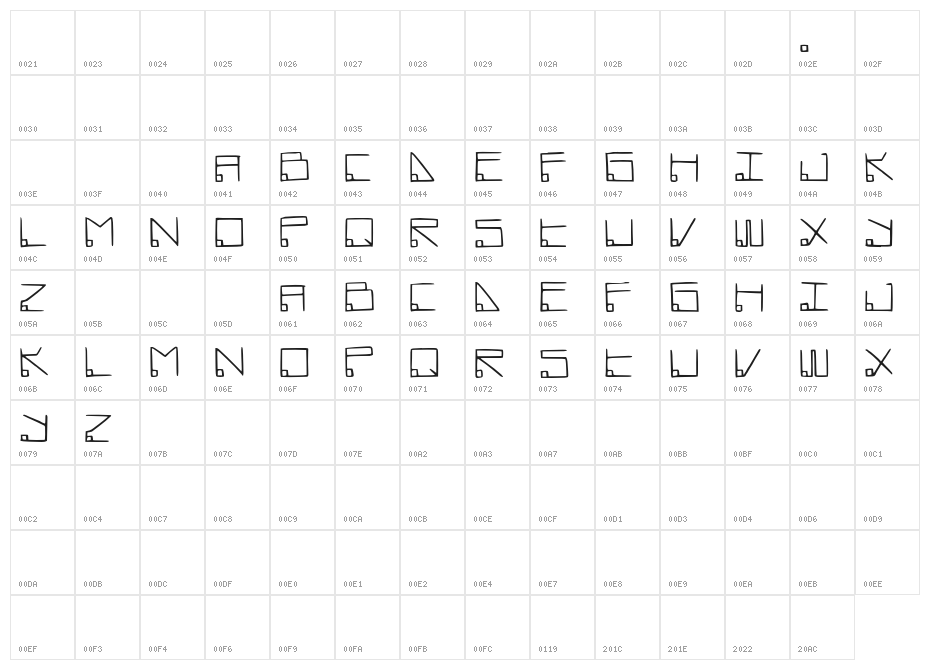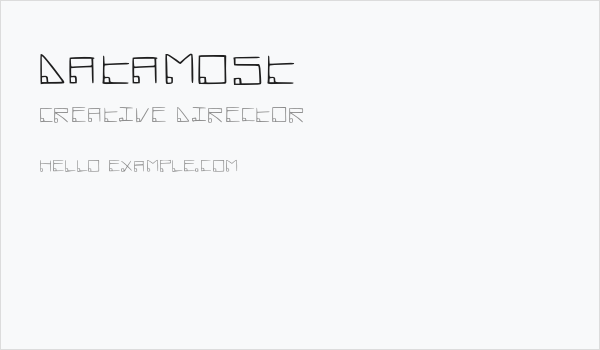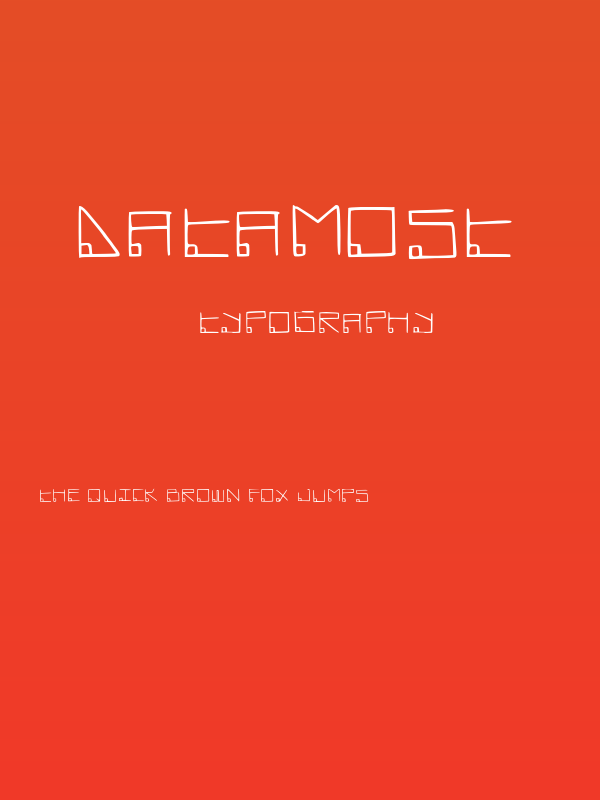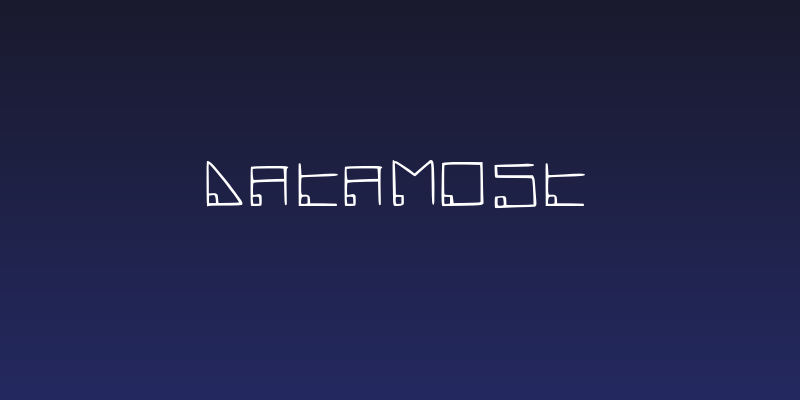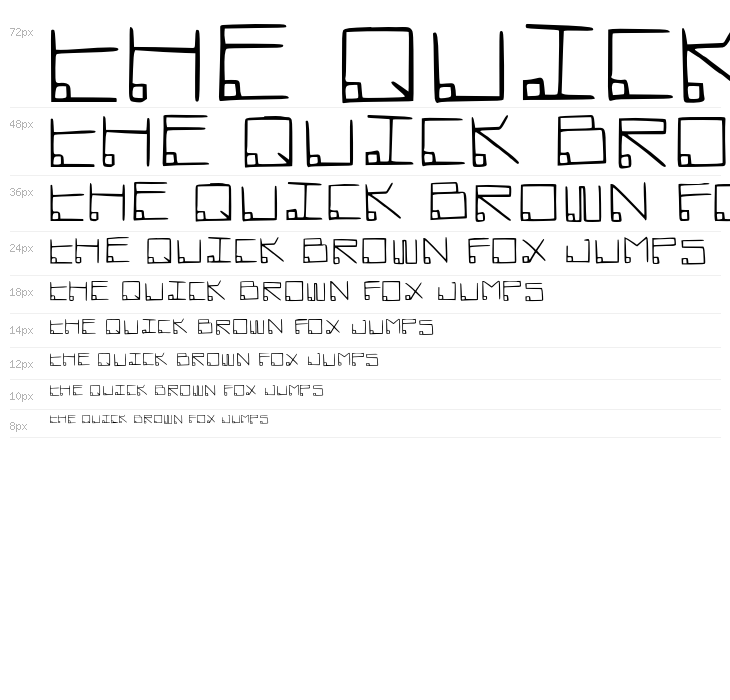
Datamost Font
Datamost Description
This font features a unique, geometric style with a futuristic and abstract appearance. Each character is composed of straight lines and right angles, creating a maze-like effect. The letters are uniform in height and width, giving a monospaced feel, although they are not strictly monospaced. The design is minimalistic yet intricate, with small cutouts and details that add to its distinctiveness. The font lacks curves, emphasizing a sharp, angular aesthetic that is both modern and unconventional. It's suitable for creative projects that require a standout, tech-inspired look.
| Use Case | Logos, Headlines, Posters |
| Proposed Projects | Ideal for sci-fi themed designs, tech branding, video game interfaces, and modern art projects. |